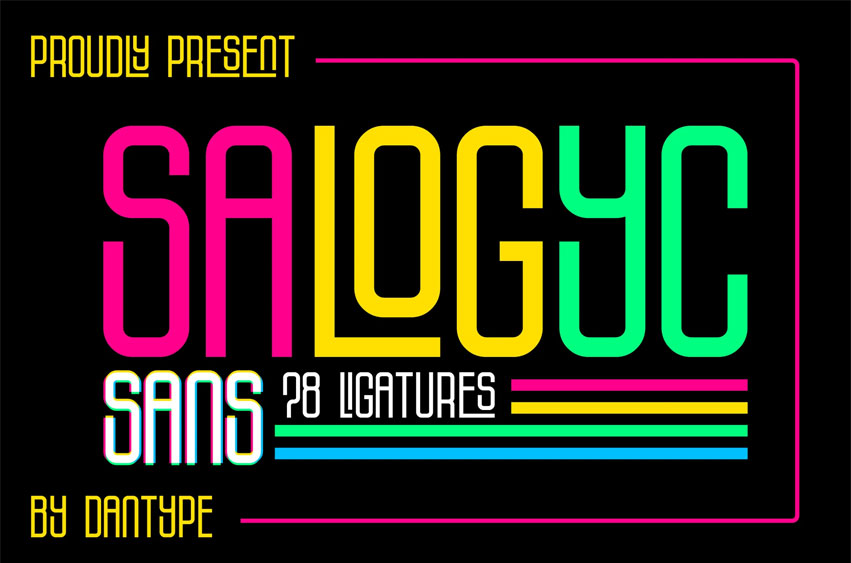
Salogyc Sans Font
Salogyc Sans Font is a futuristic display font infused with a bold retro–neon spirit. Designed to deliver a modern, energetic, and distinctive character, each letter features strong shapes, geometric proportions, and unique ligature variations that enhance design versatility.
Perfect for posters, logos, branding, electronic music album covers, and any creative typography project that demands a striking and standout look.